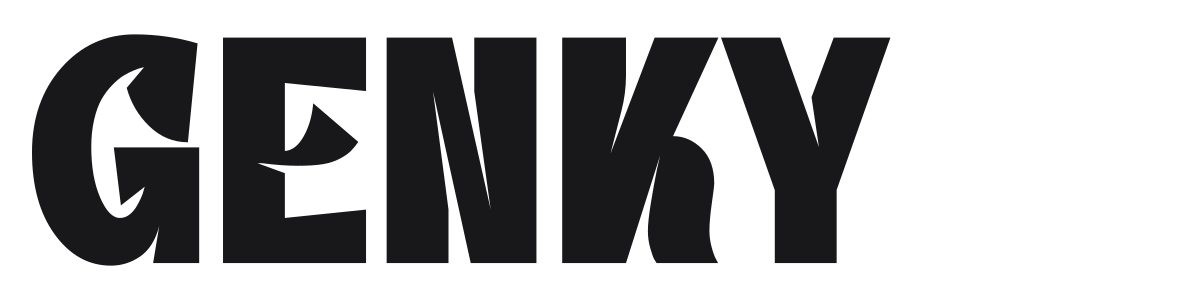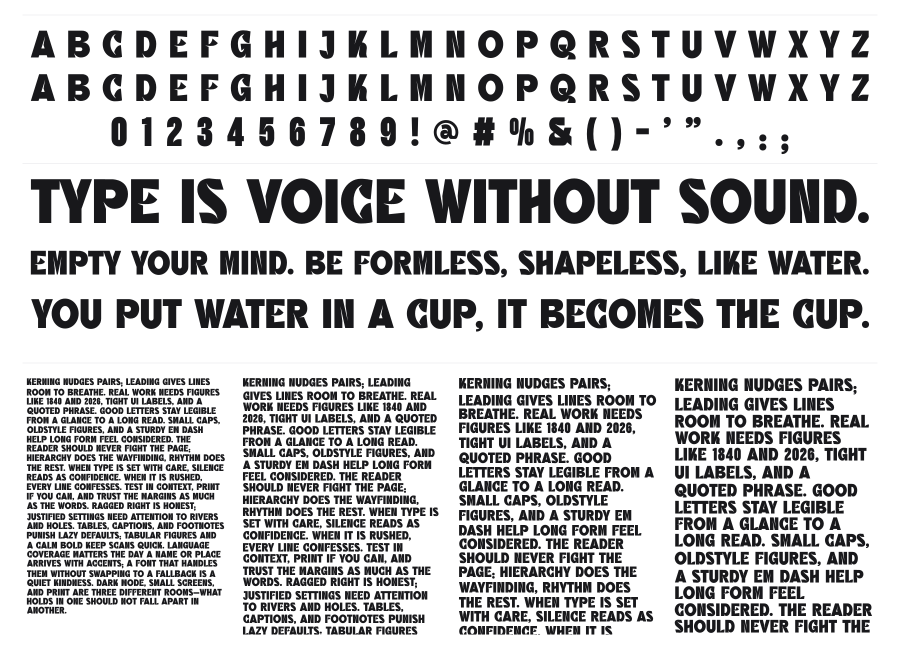
Genky
Genky is a heavy display sans-serif defined by its striking internal cutouts, which punch irregular voids into an otherwise blocky, wide structure. The fragmented effect gives it an aggressive, street-level energy that reads clearly at large sizes while remaining visually surprising. It suits headline work where impact and originality matter more than legibility at small sizes.